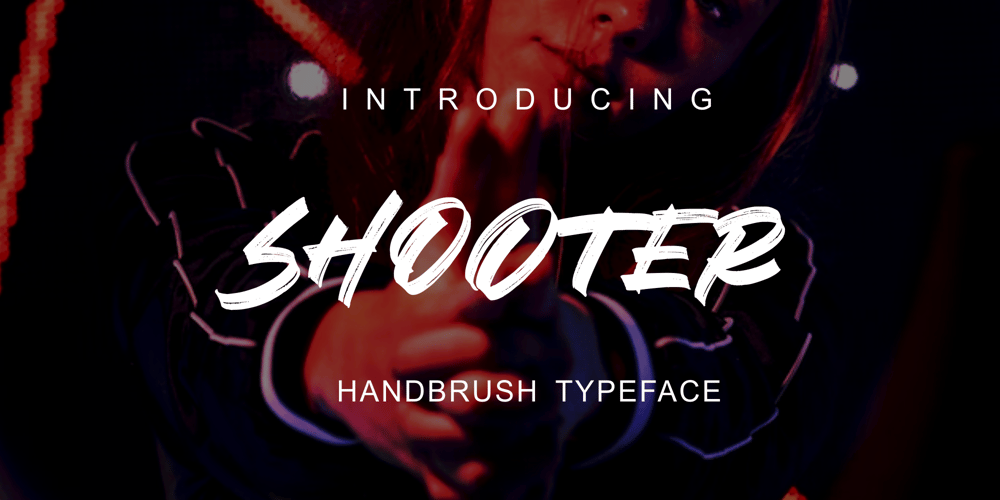
Shooter Font Family was designed by Zamjump and published by Zamjump. Shooter contains 1 styles and family package options. SHOOTER is a hand brush typeface. Get inspired by its simple, natural style and add it to your favorite designs! Ideal for logos, handwritten quotes, product packaging, headers, posters, apparel, merchandise, social media & greeting cards.Basic Latin A-Z and A-z Symbol Numerals PUA Encode Multilingual Support You need a program that supports OpenType features such as Adobe Illustrator CS, Adobe Indesign & CorelDraw X6-X7.There are additional ways to access alternatives, using the Character Map (Windows), Nexus Font (Windows), Font Book (Mac) or a software program such as PopChar (for Windows and Mac).